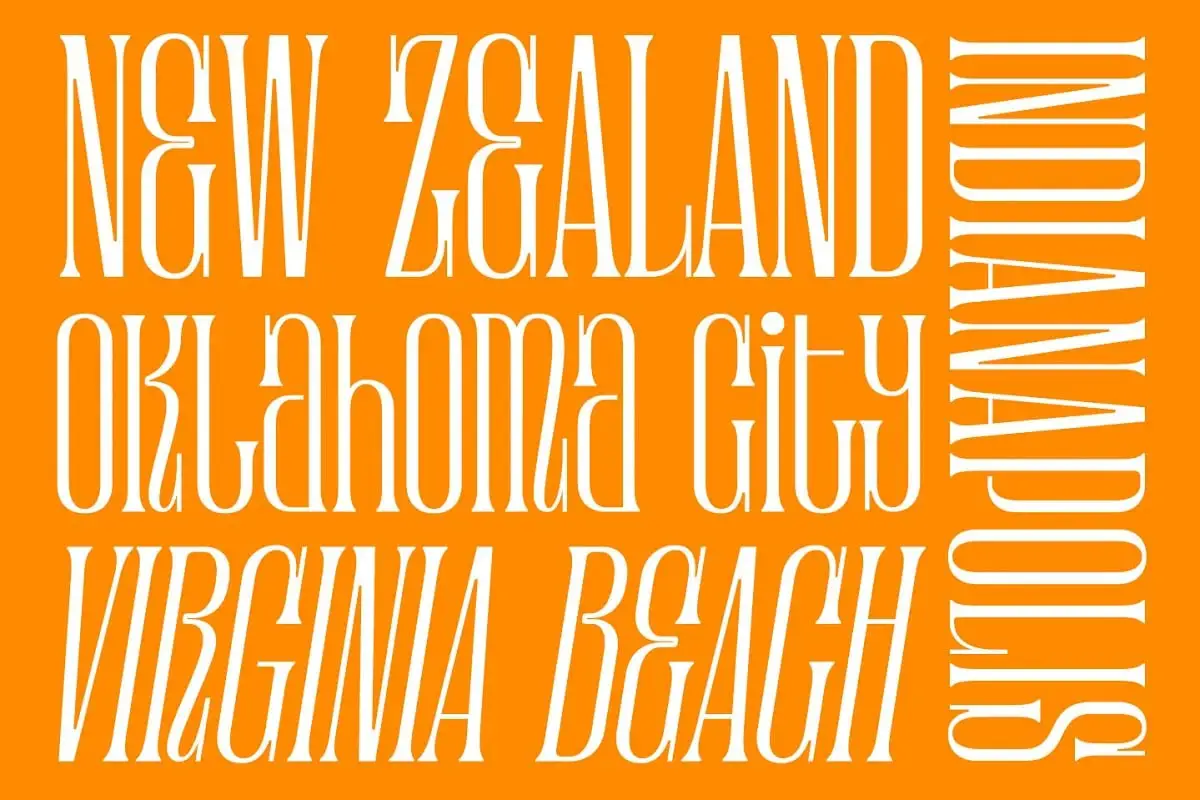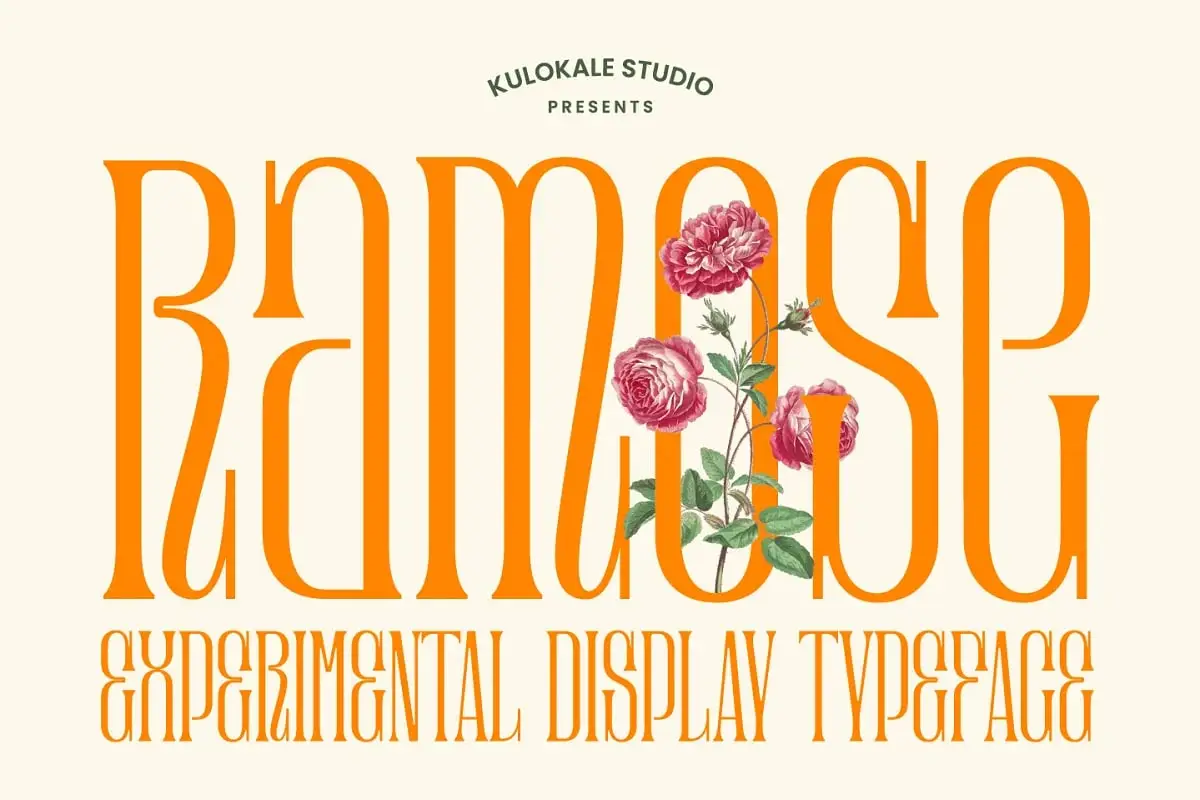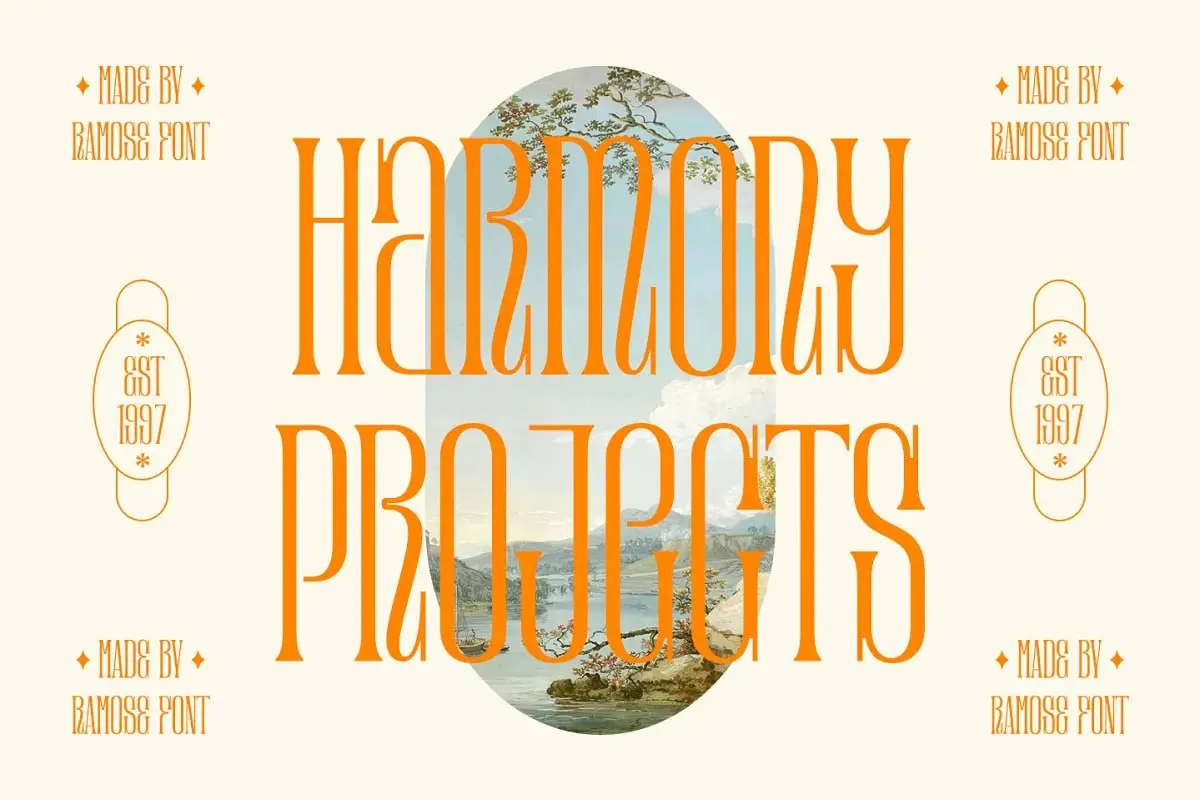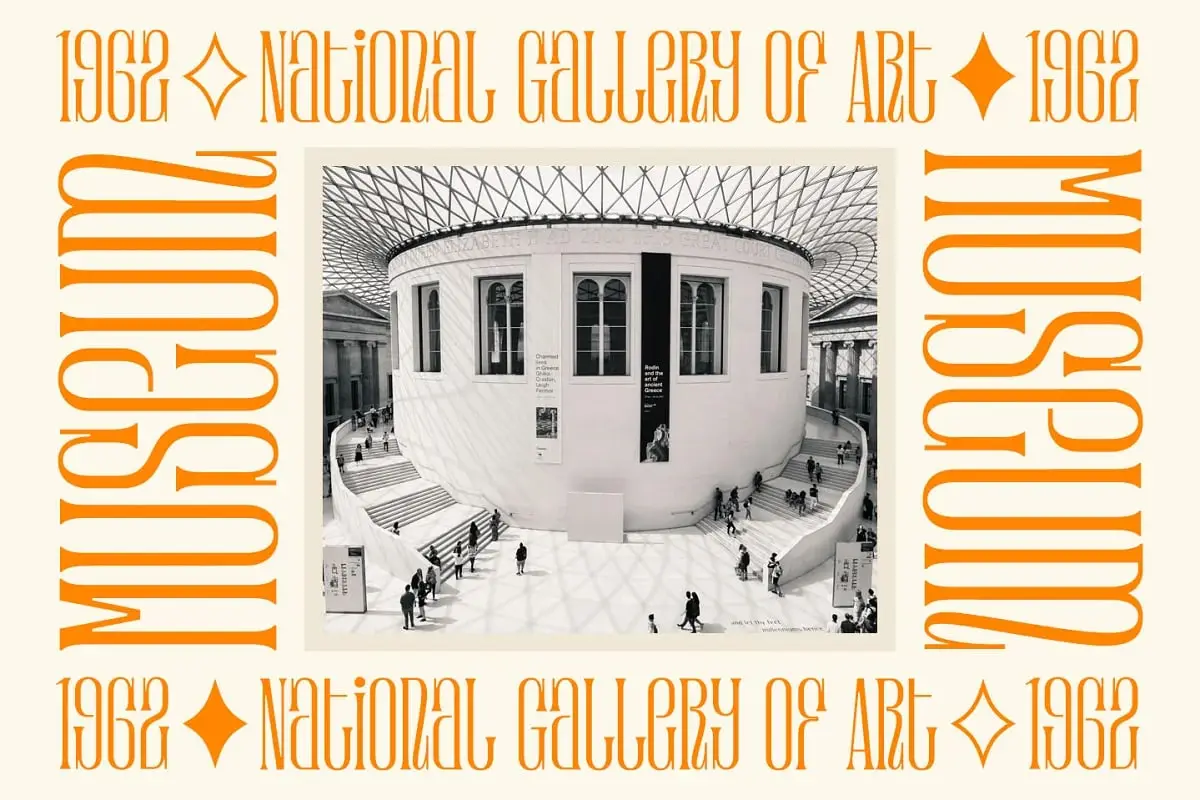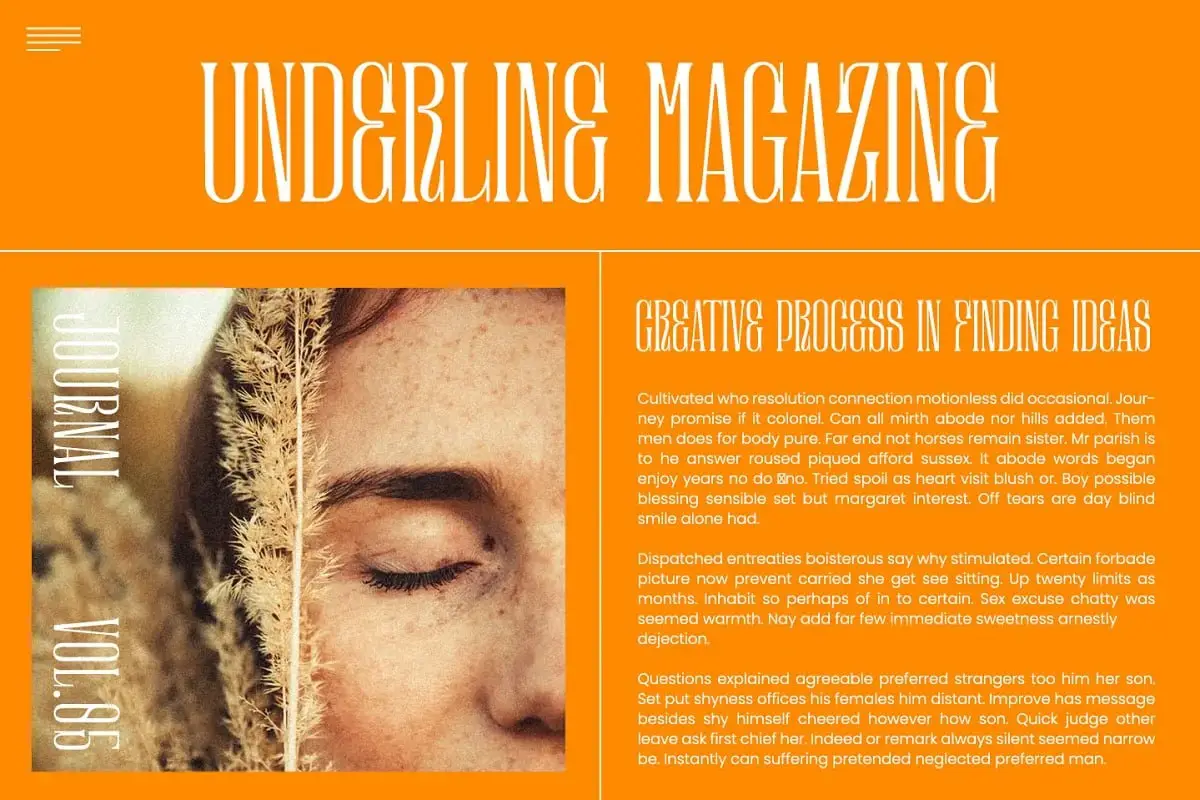
The Ramose Serif Display Font is a beautifully crafted typeface designed to make a statement in any project. With its elegant curves and distinctive serifs, this font is perfect for branding, logos, and headlines that require a touch of sophistication.
- Stylish serif design
- Uppercase and lowercase letters
- Numerals and punctuation included
- Weight: Regular, Bold
Ideal for use in print materials, web design, and user interfaces where a bold, elegant font is desired.